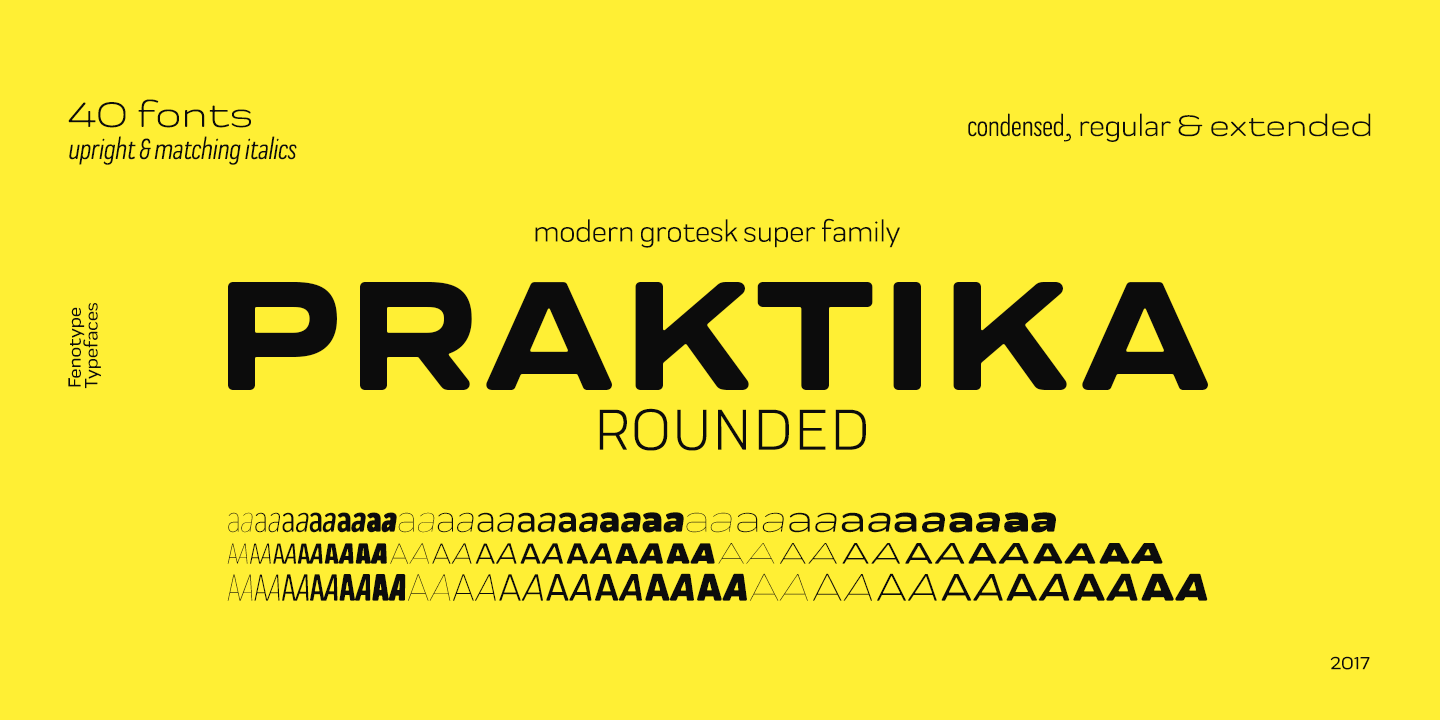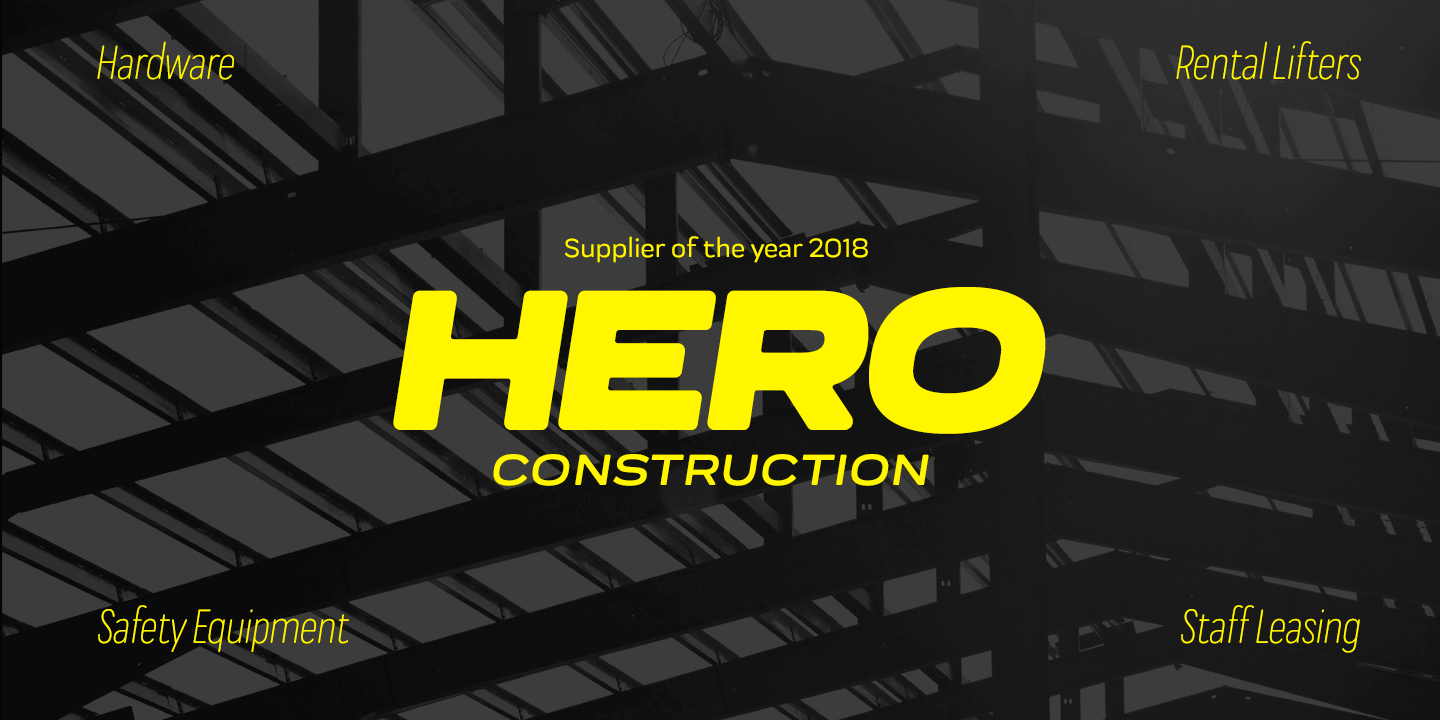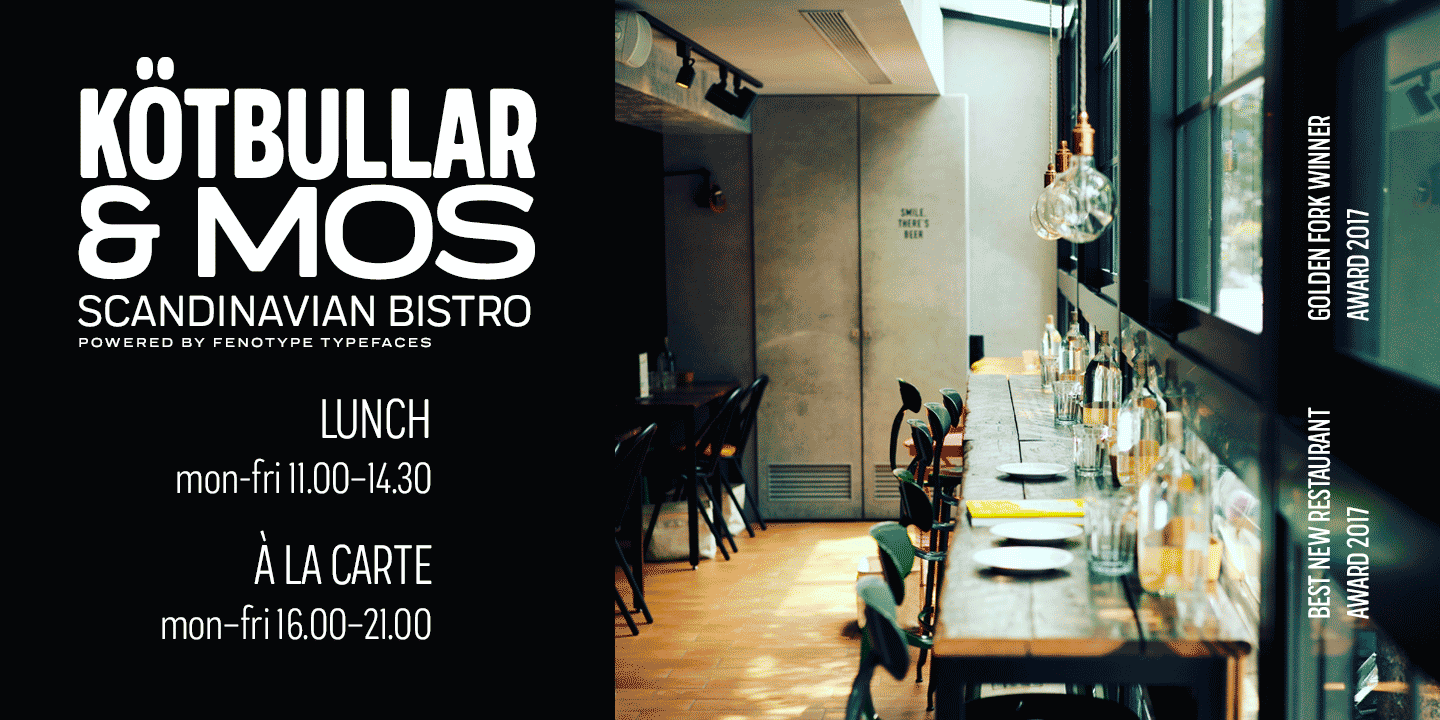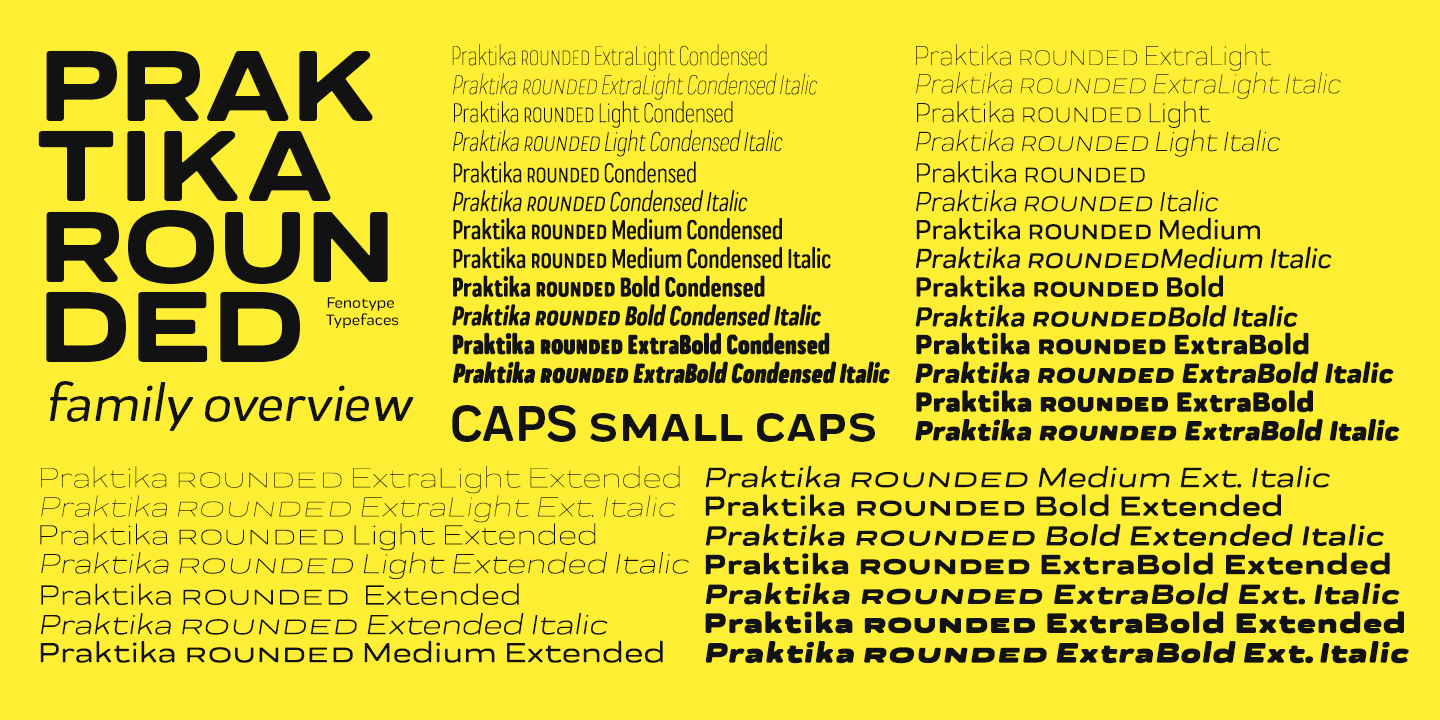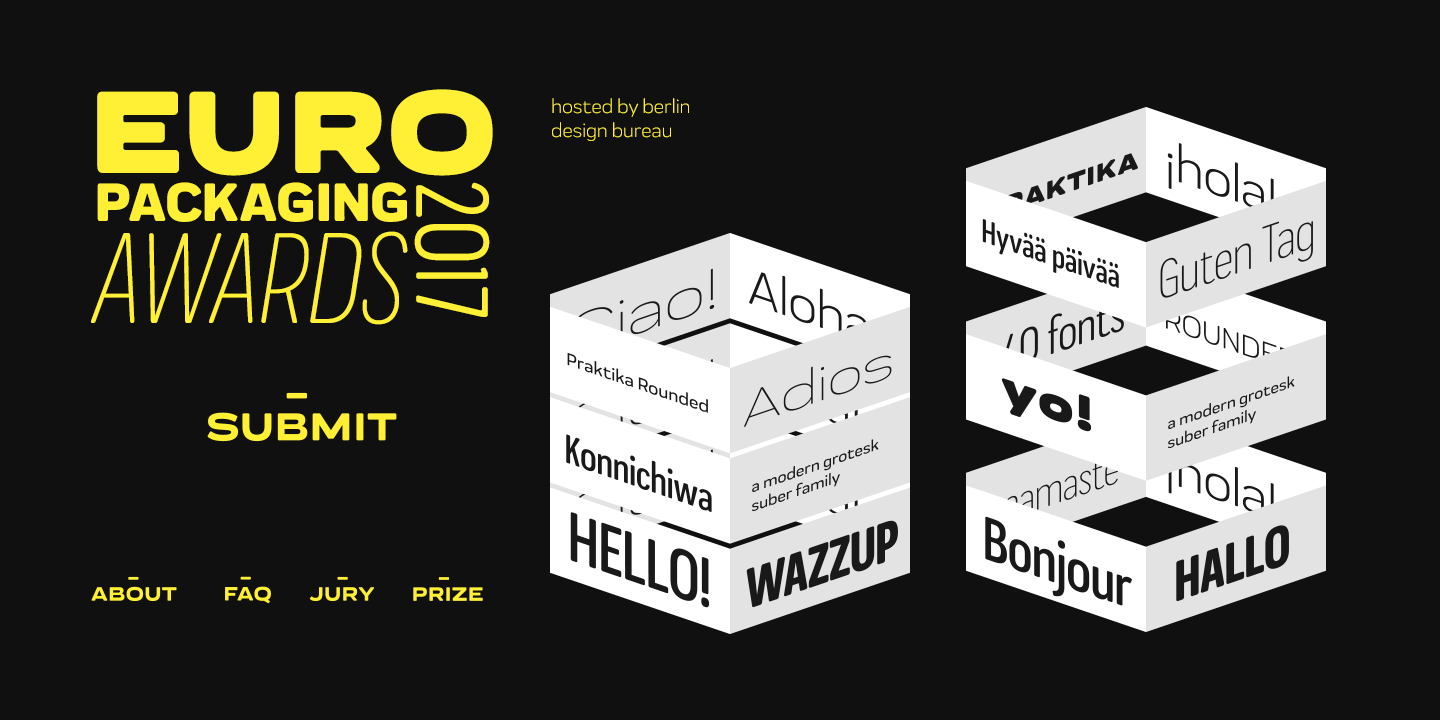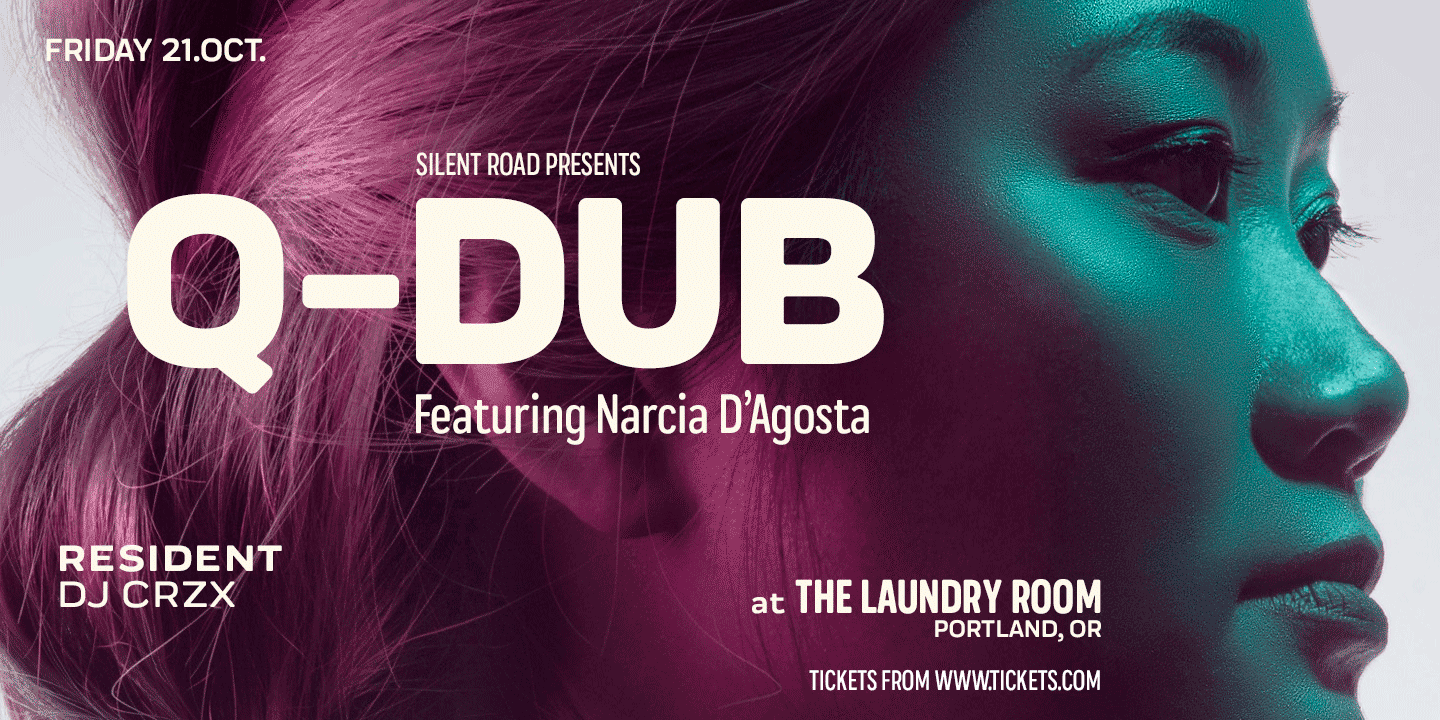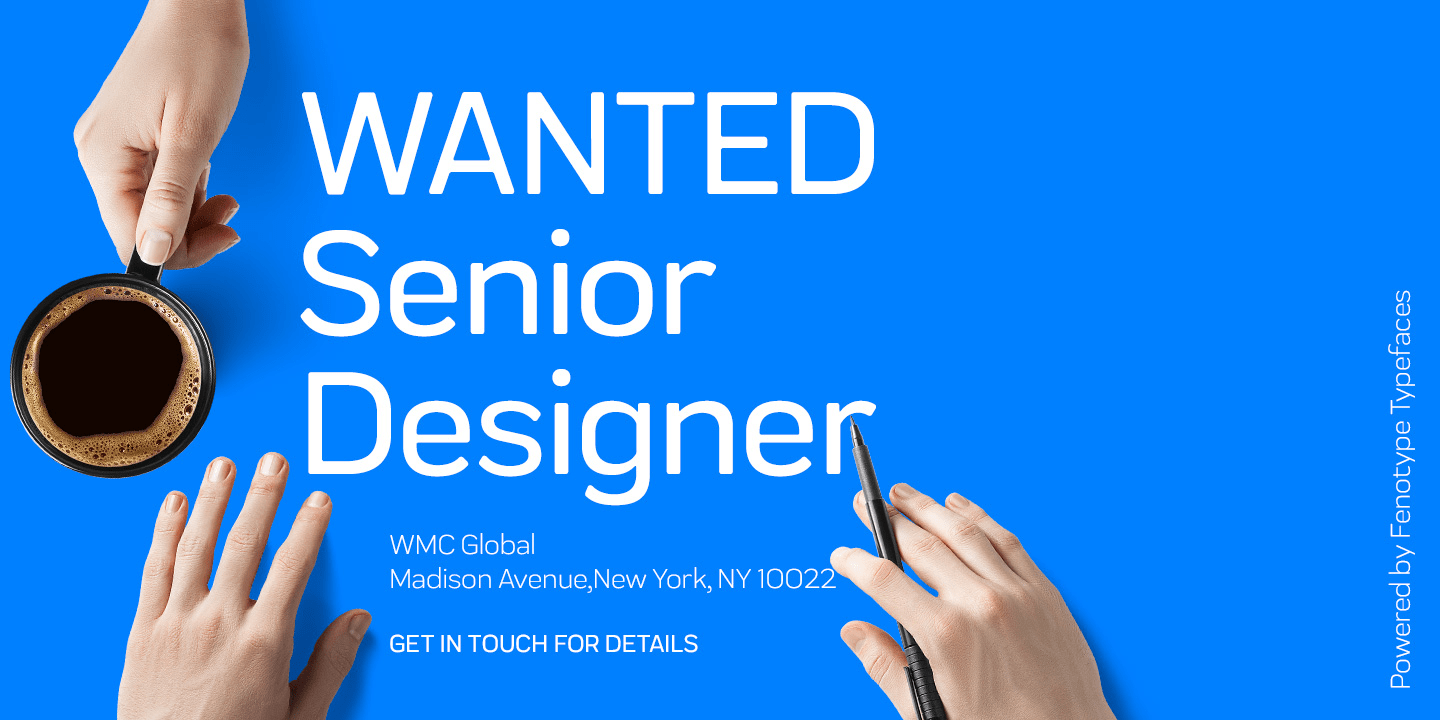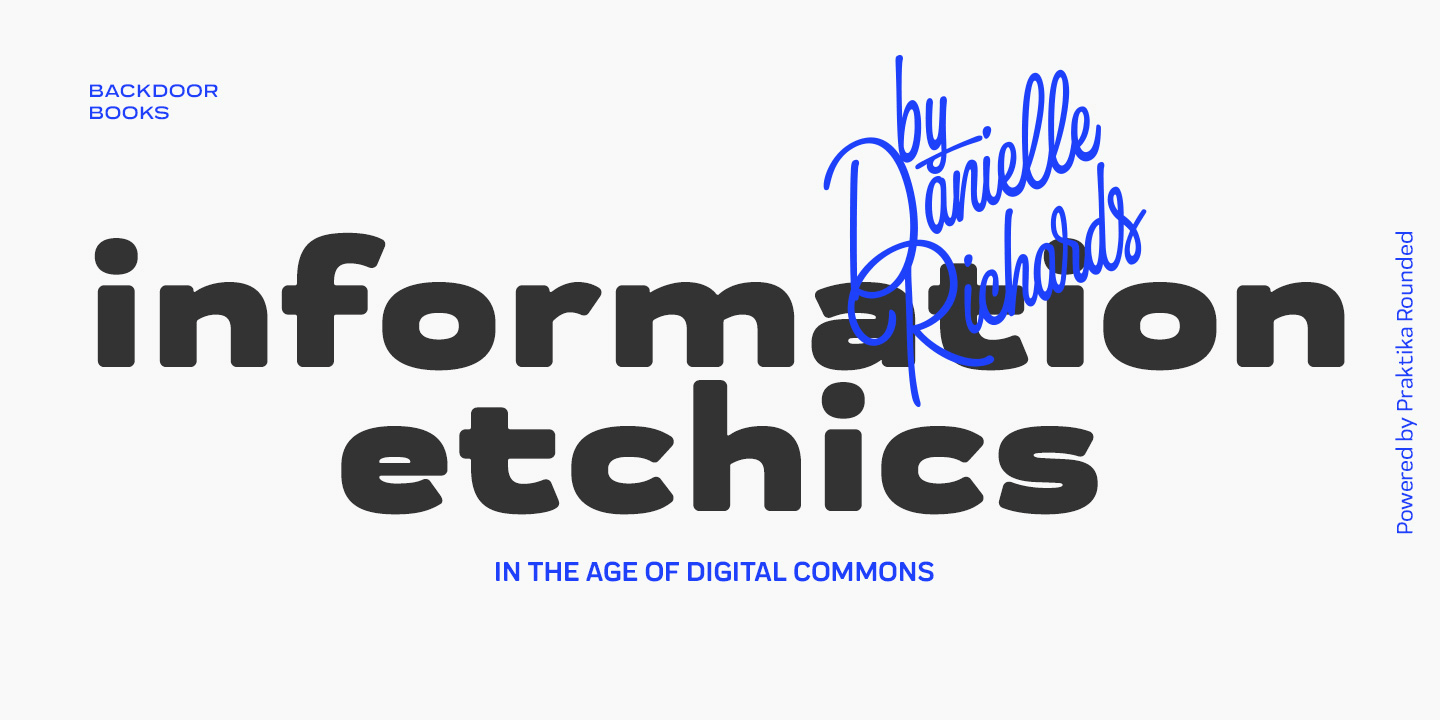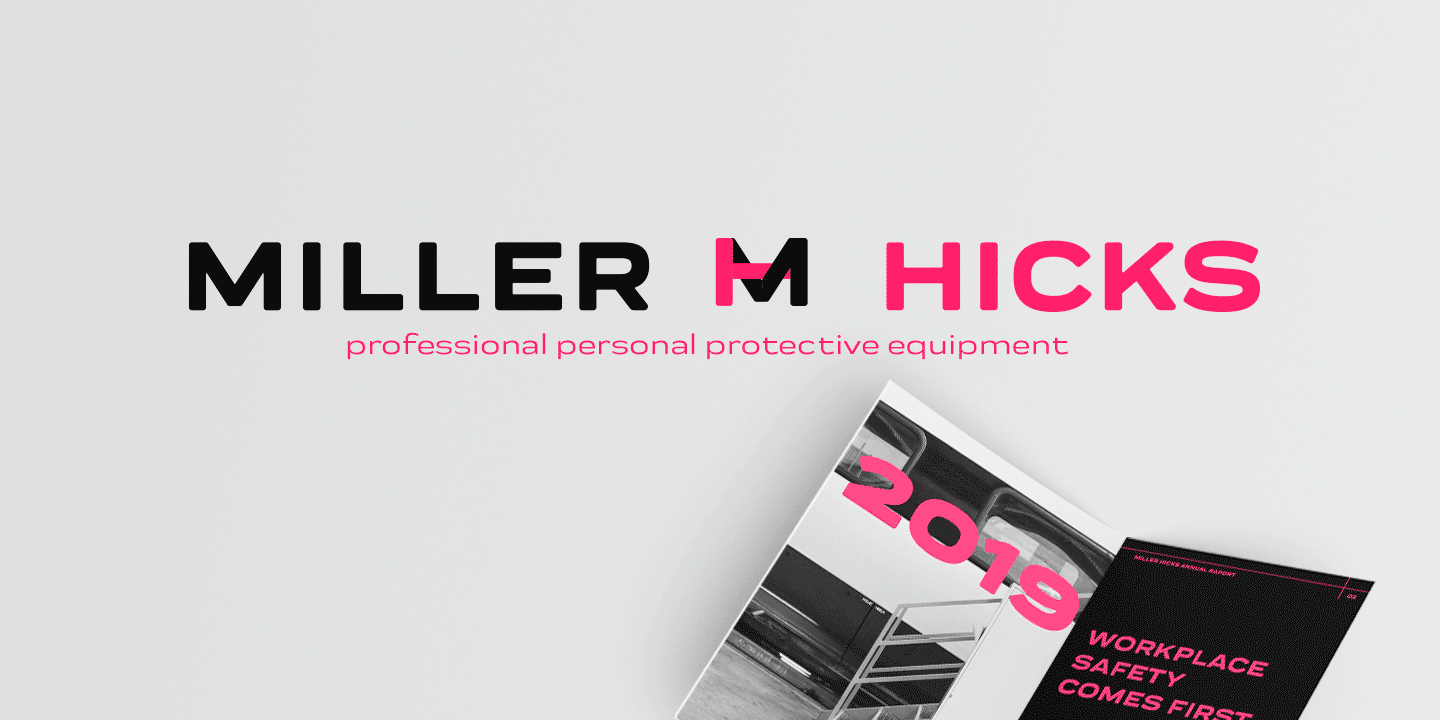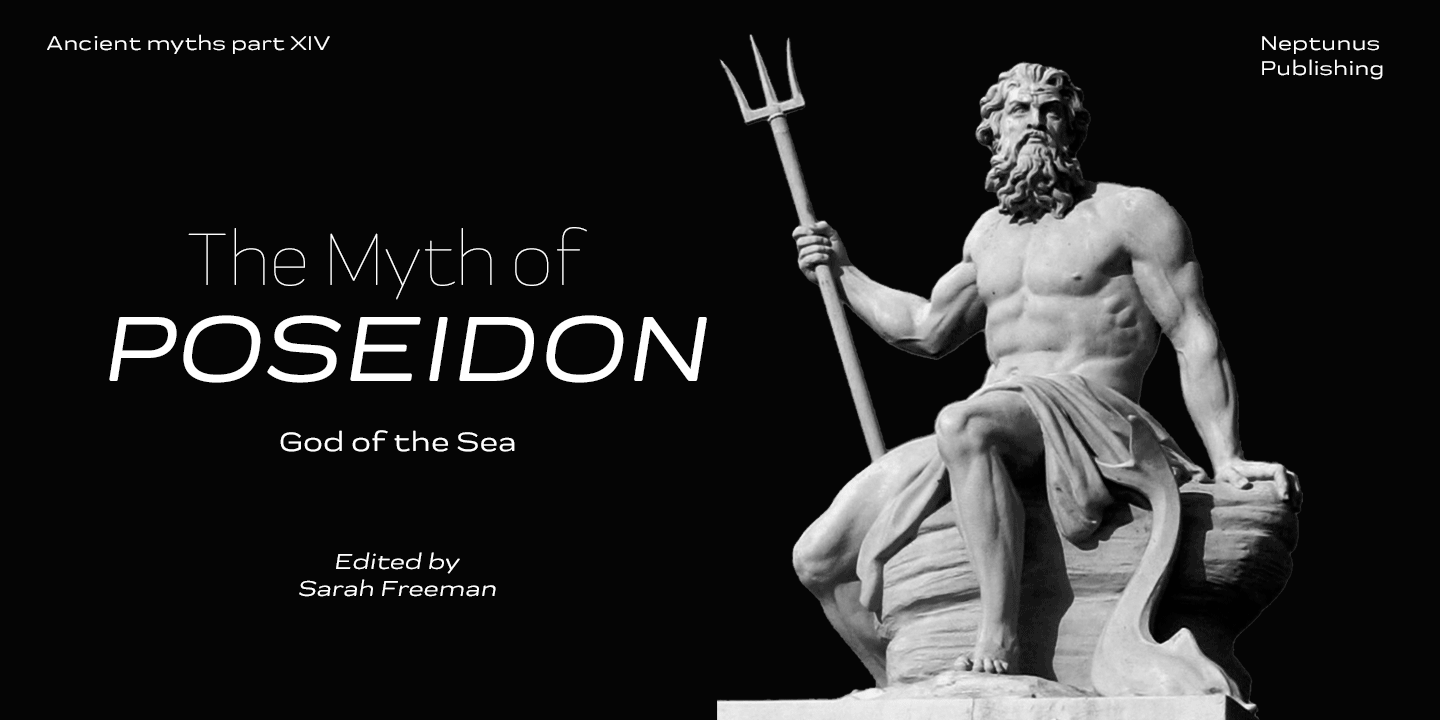
Praktika Rounded
Font Family by Fenotype
Praktika Rounded is a contemporary grotesk super family. If you happened to sleep on Praktika, the previous bestseller of Fenotype, don't worry, as here's its new rounded counterpart. Perhaps even more functional than its predecessor, Praktika rounded has a distinct look & feel of its own, rather contemporary and urban than classicist.
Praktika Rounded shares the same seven weights and three widths found in the original Praktika family, as well as the same familiar Open Type features:
- Built-in small capitals
- Both lining and old-style numerals, in tabular or proportional form
- Superscript and subscript numerals
- Many alternate characters